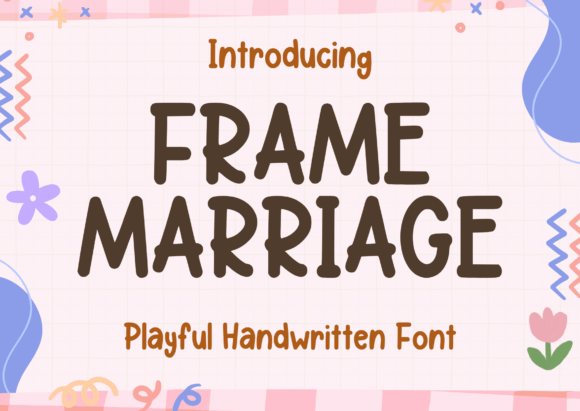
Introducing Frame Marriage Font: The Perfect Handwritten Font for Creative Projects
Are you a crafter, designer, or maker looking for a fun and playful font to elevate your creative projects? Look no further than Frame Marriage Font! This adorable handwritten font is perfect for a variety of applications, including crafts, planners, KDP, stickers, greeting cards, and more. In this article, we’ll explore the features and benefits of Frame Marriage Font, and how it can add a touch of personality to your DIY projects.
What is Frame Marriage Font?
Frame Marriage Font is a unique and charming handwritten font that’s designed to add a personal touch to your creative projects. Its cute and friendly style makes it perfect for a wide range of applications, from crafting and DIY projects to commercial use. With its playful and approachable vibe, Frame Marriage Font is sure to delight audiences of all ages.
Uses for Frame Marriage Font
Frame Marriage Font is incredibly versatile, and can be used for a variety of creative projects, including:
- Crafts: Add a personal touch to your handmade crafts, such as knitted items, jewelry, and decorative items.
- Planners: Create custom planners, journals, and organizers that are both functional and stylish.
- KDP: Use Frame Marriage Font to create eye-catching book covers, journals, and planners for Kindle Direct Publishing.
- Stickers: Design custom stickers for laptops, water bottles, and other items.
- Greeting cards: Create personalized greeting cards for special occasions, such as birthdays, weddings, and holidays.
- Cricut: Use Frame Marriage Font with your Cricut machine to create custom vinyl decals, iron-on designs, and paper crafts.
- Sublimation: Design custom sublimation products, such as mugs, tumblers, and phone cases.
Benefits of Frame Marriage Font
So why choose Frame Marriage Font for your creative projects? Here are just a few benefits:
- Unique and playful style: Frame Marriage Font has a one-of-a-kind, handwritten style that’s sure to stand out.
- Easy to read: Despite its playful style, Frame Marriage Font is easy to read, making it perfect for body text and headlines.
- Versatile: Frame Marriage Font can be used for a wide range of creative projects, from crafts to commercial use.
- Cute and friendly: Frame Marriage Font has a charming, approachable vibe that’s perfect for projects that require a personal touch.
Tips for Using Frame Marriage Font
Here are a few tips for getting the most out of Frame Marriage Font:
- Experiment with different colors: Frame Marriage Font looks great in a variety of colors, so don’t be afraid to experiment and find the perfect hue for your project.
- Pair with other fonts: Frame Marriage Font pairs well with other fonts, so try combining it with a bold or serif font for added visual interest.
- Use for headlines and body text: Frame Marriage Font is easy to read, making it perfect for both headlines and body text.
- Add a personal touch: Use Frame Marriage Font to add a personal touch to your projects, such as a custom signature or monogram.
In conclusion, Frame Marriage Font is a fun and playful handwritten font that’s perfect for creative projects of all kinds. With its cute and friendly style, versatile uses, and easy-to-read design, it’s a great addition to any crafter, designer, or maker’s toolkit. Whether you’re creating crafts, planners, KDP projects, or simply want to add a personal touch to your DIY projects, Frame Marriage Font is the perfect choice.